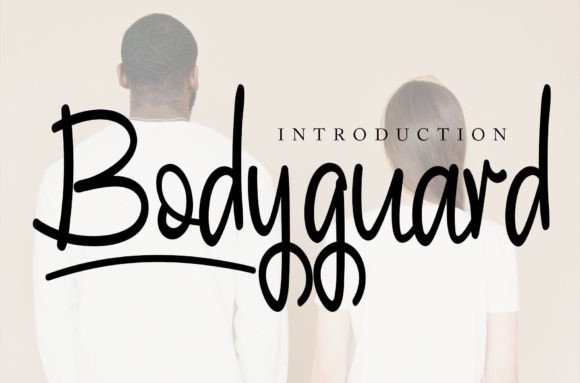
The Ultimate Bodyguard Font Guide: Unlocking Creative Possibilities
I’ll never forget the time I was working on a project for a client’s children’s book. I had a clear vision of the story, the illustrations, and the overall aesthetic, but there was one major hurdle: finding the perfect font. The client’s request was simple – they wanted something fun, friendly, and engaging. I scoured the internet, tried out countless fonts, but nothing seemed quite right. That was until I stumbled upon the Bodyguard font. ✨
It was love at first sight! The unique charms of Bodyguard immediately caught my attention, and I knew I had found the perfect fit. In this article, I’ll share my experience with the Bodyguard font, its features, and how to make the most of it in your designs.
An Honest Review of Bodyguard Font
• ✨ Fun and Friendly Vibe: Bodyguard has a playful, approachable feel that makes it perfect for designs that need a personal touch.
• ✅ Highly Versatile: This font can be used for a wide range of projects, from children’s books and posters to social media graphics and crafts.
• 💫 Unique Charms: The font’s handwritten style has a distinctive, artistic flair that sets it apart from more generic fonts.
While Bodyguard is an excellent font, it’s not without its quirks. ⚠️ Some users may find that the font:
• 🤔 Can be overly decorative: For very long texts or formal documents, Bodyguard might be too ornate.
• ⚠️ May require adjustment for readability: Depending on the size and use case, some letters might need tweaking for optimal readability.
Exploring Alternatives to Bodyguard Font
If you love Bodyguard but want to explore other options, here are some similar fonts and their personalities:
• Pacifico: A beautiful, elegant script font perfect for more formal or sophisticated designs.
• Great Vibes: A fun, adventurous script that’s great for titles and headings.
• Carolyna Pro: A lovely, elegant script with a vintage feel.
• Lobster: A stunning, elegant script that’s perfect for formal or decorative designs.
The Backstory of Bodyguard Font
While the true origins of Bodyguard font might be shrouded in mystery, it’s easy to imagine a designer with a passion for handwriting and creativity bringing it to life. Perhaps they wanted to create a font that felt approachable, fun, and capable of bringing a smile to the reader’s face. Whatever the inspiration, Bodyguard has undoubtedly become a beloved font among designers and crafters.
Font Name Bodyguard Font
Author Sansana
What makes Bodyguard font unique? Its fun, friendly, and handwritten style makes it stand out.
Is Bodyguard suitable for body text? While possible, it’s better suited for headings and short texts.
Bodyguard font is more than just a typeface; it’s a tool for creativity and self-expression. By understanding its features, quirks, and best use cases, designers and crafters can unlock a world of possibilities. Whether you’re creating a children’s book, a poster, or a social media graphic, Bodyguard is sure to bring a touch of fun and personality to your designs.